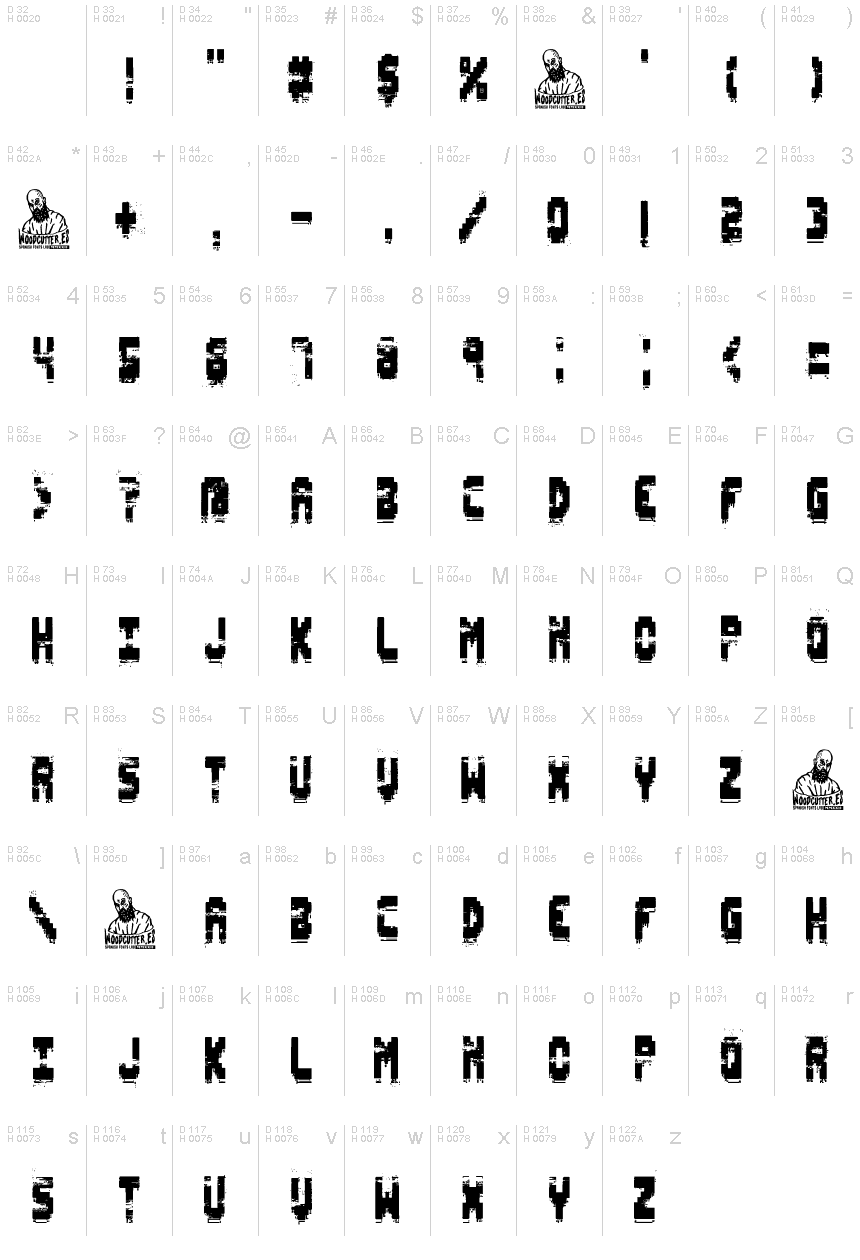
Pixel Destroyed
Pixel Destroyed, designed by Woodcutter, is a bold and condensed display font that brings a distorted and digital aesthetic to your projects.
With its pixelated design, this font is perfect for creating eye-catching headers, logos, and titles in video games, technology blogs, or graphic designs with a futuristic twist. Its unique style adds an edgy and gritty feel to any project, making it suitable for dystopian novels covers or cyberpunk-themed websites.